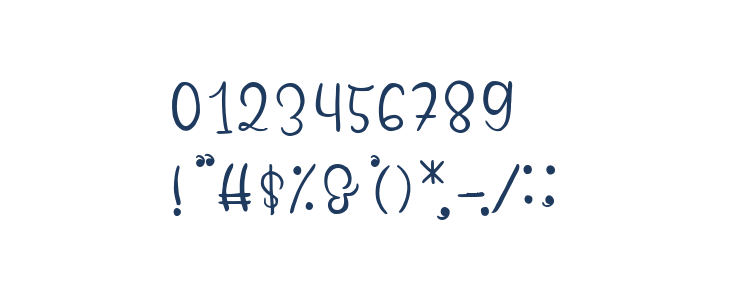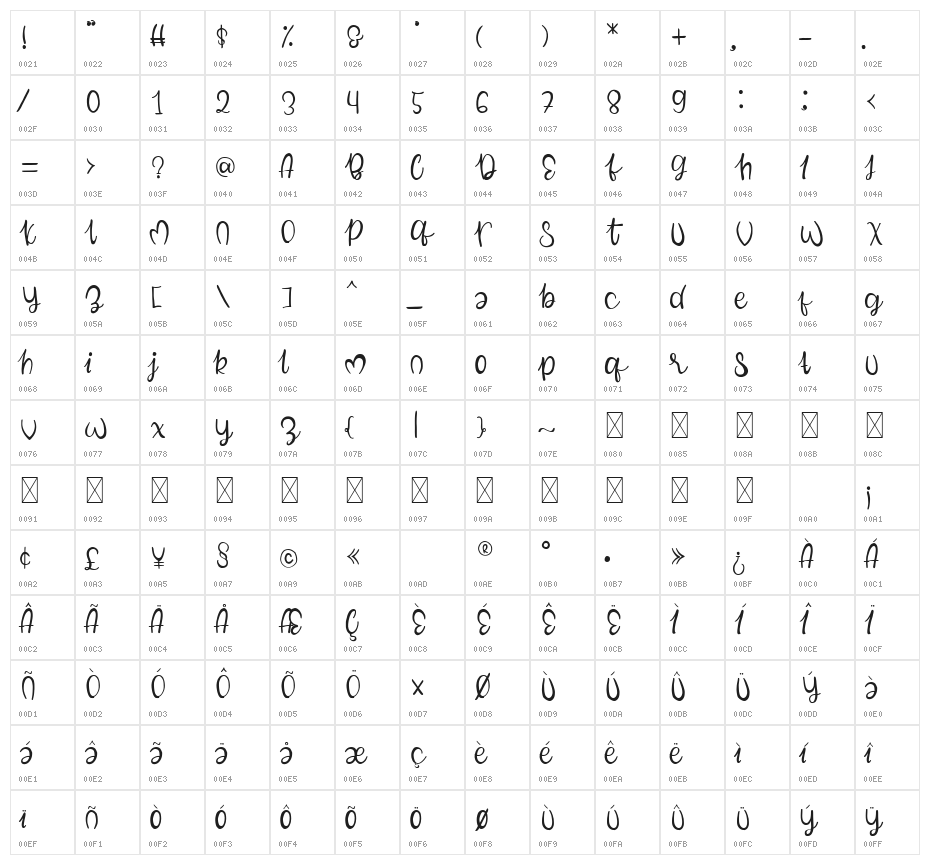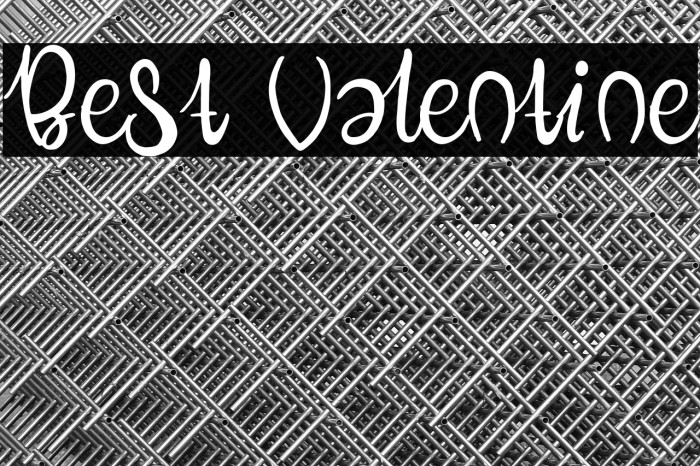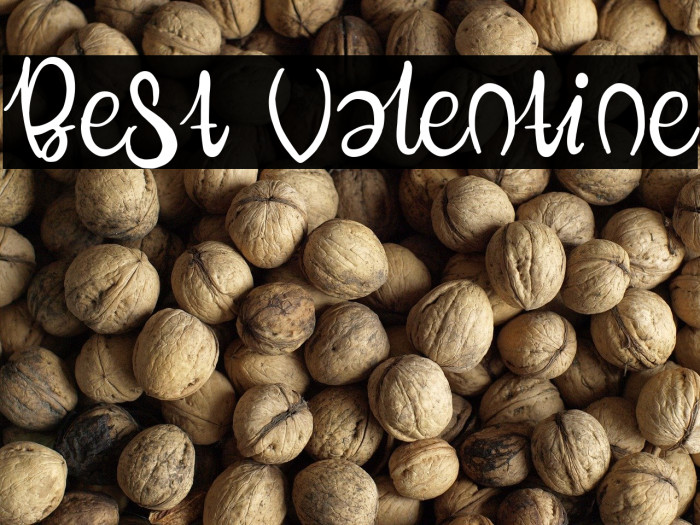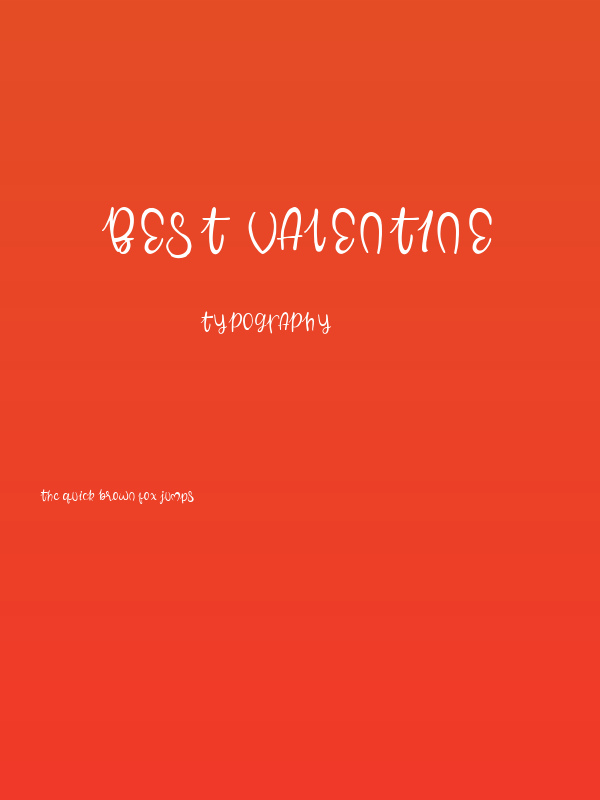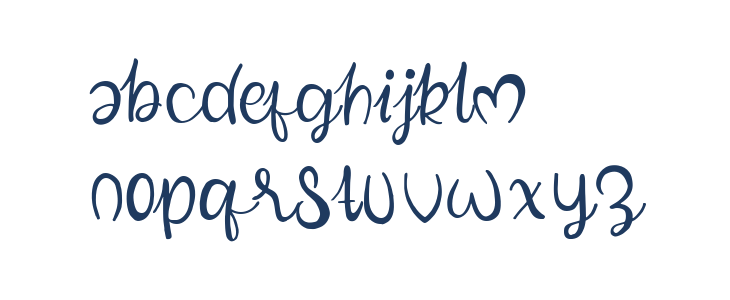
Best Valentine Font
Best Valentine Description
This font features a playful and whimsical script style with a handwritten appearance. The letters are characterized by smooth, flowing curves and a casual, informal feel. The uppercase and lowercase letters maintain a consistent style, with some letters having unique, artistic flourishes. The numbers and special characters are designed to match the overall aesthetic, providing a cohesive look. This font's charm lies in its ability to convey a sense of warmth and personality, making it ideal for creative and personal projects.
Overall StyleWhimsical
Use CaseLogos, Invitations, Greeting Cards
Proposed ProjectsIdeal for greeting cards, invitations, personal branding, and creative projects that require a touch of personality and warmth.